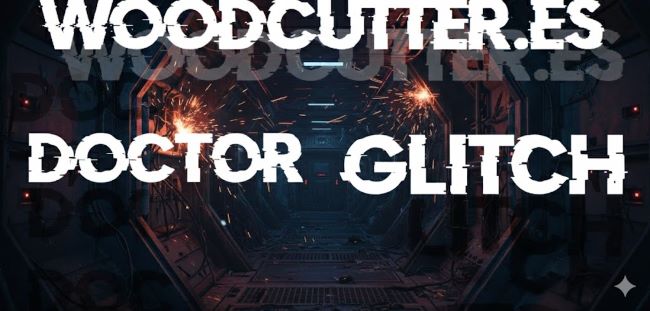
Doctor Glitch Font
Doctor Glitch Font is a bold, futuristic display typeface inspired by digital distortion and glitch effects. With its broken lines, fragmented shapes, and cyber-style energy, it’s perfect for sci-fi designs, gaming graphics, tech branding, posters, and edgy visual projects that need a high-impact, digital aesthetic.
➤ Font Name: Doctor Glitch
➤ Designer: Woodcutter
➤ Style: Distorted